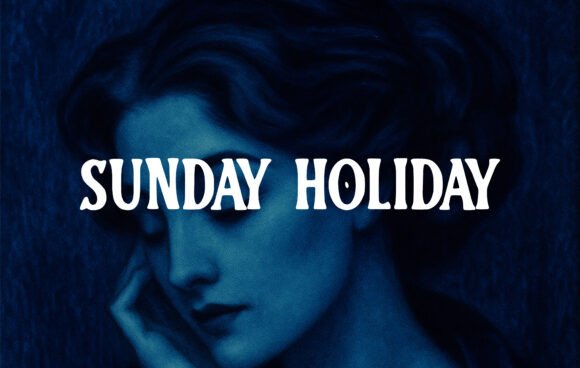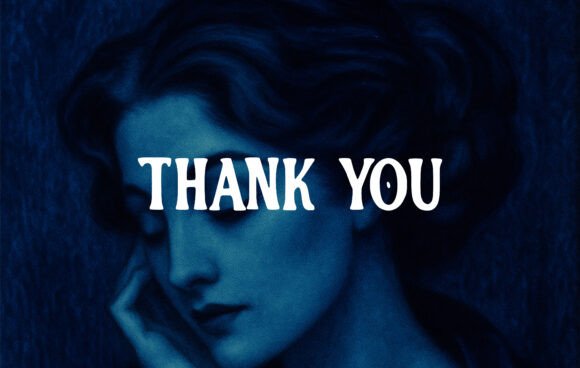
Introduction to Retro Velvet Font
As a designer, there’s nothing quite like the rush of inspiration that comes from stumbling upon a timeless typography solution. I recall a particularly pivotal moment when I was working on a retro-themed project – the perfect font had to be found. Amidst a sea of digital options, one name kept popping up: Retro Velvet Font. This enchanting serif display font radiates a nostalgic charm that’s hard to resist.
Its bold letterforms, with smooth curves, subtle flares, and high-contrast strokes, are a masterclass in evoking the timeless appeal of vintage typography. The Retro Velvet Font perfectly balances elegance and playfulness, making it an ideal choice for posters, album covers, logos, packaging, and editorial layouts that need a bold, stylish statement. Whether you’re creating a retro-inspired design or adding a unique touch to modern branding, this design resource delivers personality and versatility that stand out in every project.
Key Features of Retro Velvet Font
- The font’s unique, distressed aesthetic gives it a distinctive, vintage look that’s perfect for retro-themed designs and creative projects.
Honest Review: Retro Velvet Font
I recently came across the Retro Velvet Font, and I must say, it’s a delightful addition to any designer’s toolkit. This font is perfect for designers looking to add a touch of nostalgia to their creative projects. ✨
- High-quality design: The Retro Velvet Font features intricate details and a smooth texture, making it perfect for printing or digital use.
- The font’s unique design makes it stand out in any creative project.
- The high-quality design ensures that the font looks great at any size or resolution.
- ⚠️ The font may not be suitable for all design styles, as it has a distinct retro vibe.
- ⚠️ Some users may find the font’s intricate details overwhelming or difficult to read at small sizes.
Overall, I’m impressed with the Retro Velvet Font. It’s a great addition to any design resource, and its high quality makes it a valuable asset for designers. I’d definitely recommend it to anyone looking to add a touch of retro charm to their creative projects.
Designing with Retro Velvet Font
The Retro Velvet Font is a high-quality design resource that can elevate any creative project. Its unique texture and aesthetic make it perfect for designs that require a touch of nostalgia and sophistication.
Common Use Cases for Retro Velvet Font
- Photography and art prints
- Marketing and advertising materials